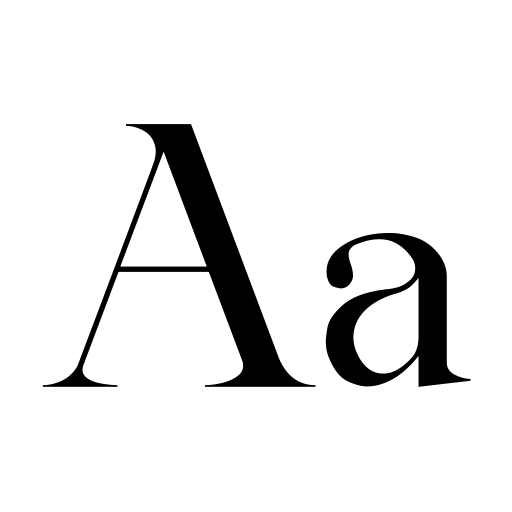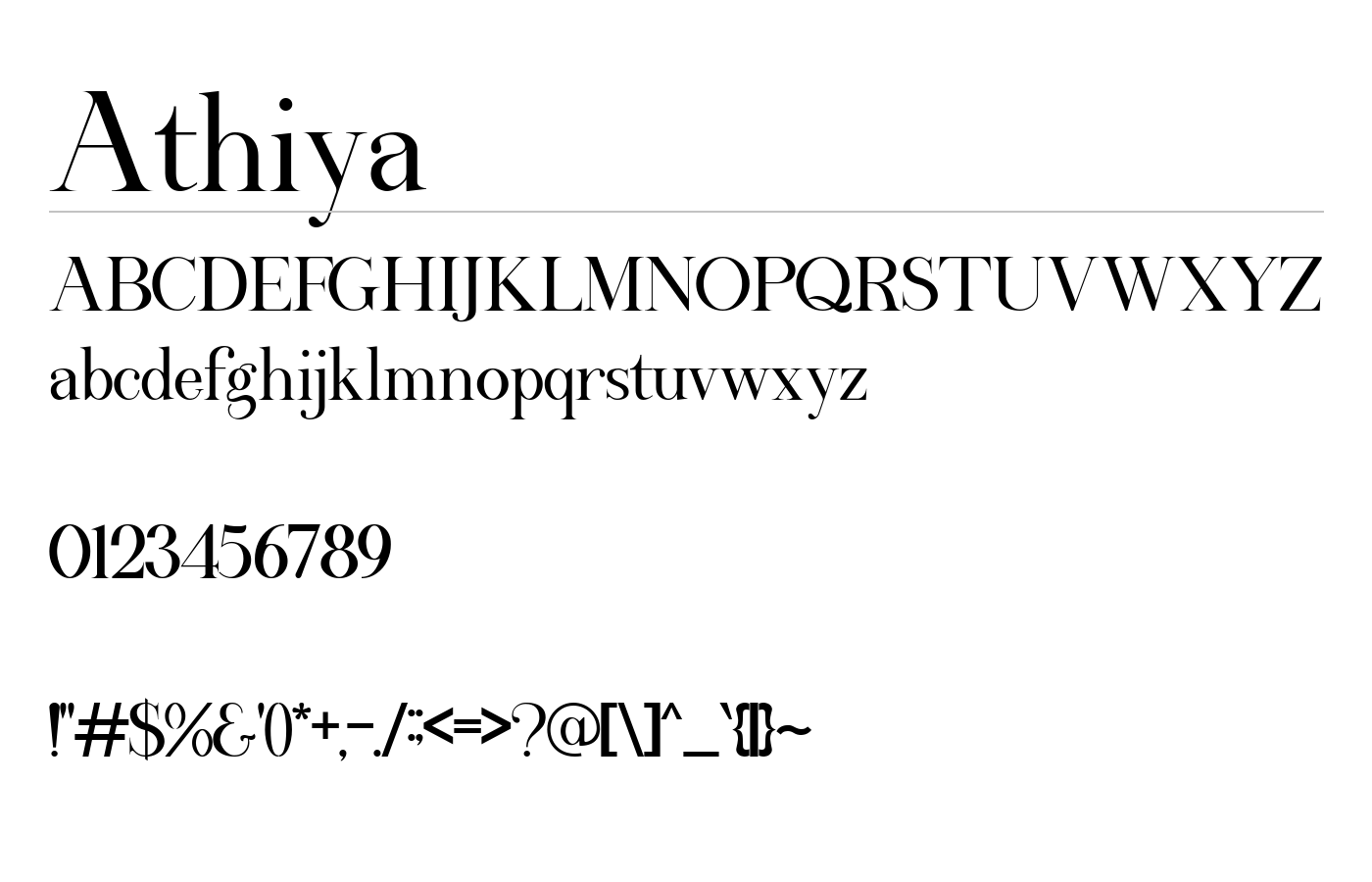
Athiya is an elegant serif font that combines high contrast between thick and thin strokes with delicate, bracketed serifs, creating a refined and sophisticated appearance. Its slightly condensed letterforms and moderate x-height give it a graceful, timeless feel, making it ideal for luxury branding, editorial headlines, and upscale packaging where a classic yet modern expression is desired.
Athiya Font